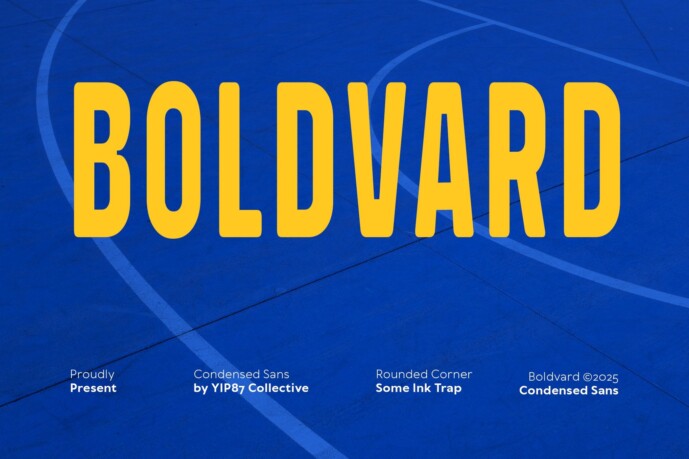
Boldvard – Modern Sport Bold Condensed / Tall Sans Serif with Inktrap – Logo and Display Font
Boldvard is a Clean Minimalist Modern Condensed / Tall Bold Sans Serif, designed specifically for logo, cafe / food branding, headers / headline, game and sport / gym branding. Razdown is impactful and timeless logos. Boldvard Font ensures your designs make a lasting impression. Elevate your branding design projects with Boldvard Font today.